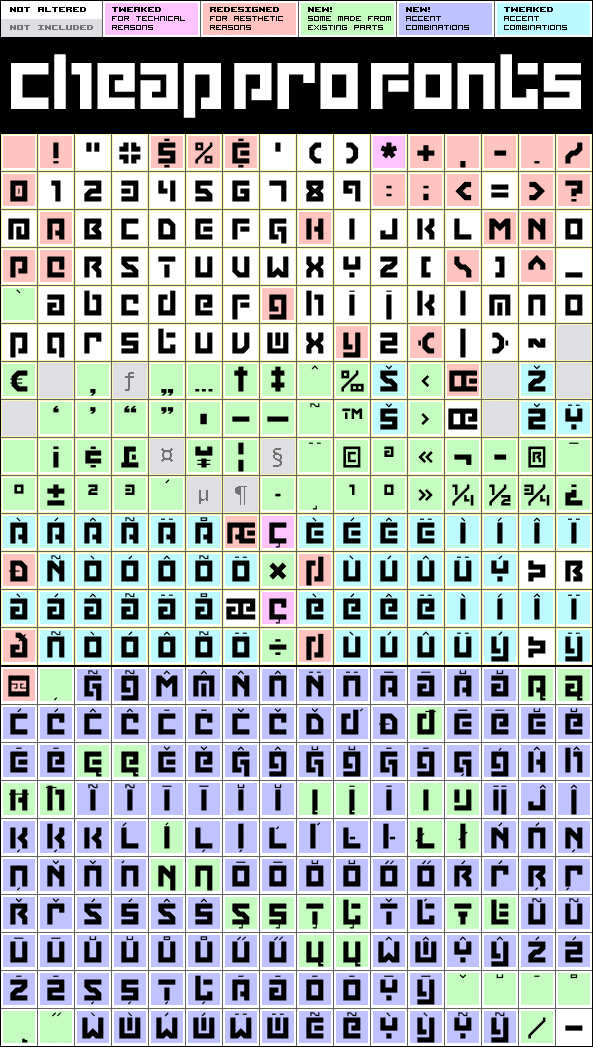
Grapple BRK Pro
Grapple BRK Pro by Brian Kent
Designer:
Brian Kent
Highlights:
372 glyphs!
(163 in original)
36 class kernpairs
= 554 kerning pairs
(none in original)
Description:
Another very squarish and futuristic font from Brian Kent. This time I've kept the very thin style of the diacritics, but I have redesigned the A and H (and a couple of other letters and glyphs ;) - mostly to give them a little more "meat". And then added the usual plethora of accented letters for our unique language support, of course.
Grapple BRK Pro is a professionally reworked font that contains an extended character set for setting text in 65 languages requiring more than the basic A-Z!